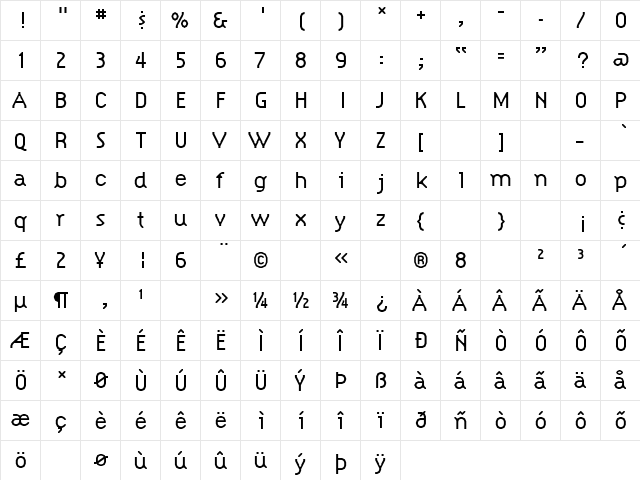
CitizenLight Regular
Design Context for CitizenLight Typeface
CitizenLight takes a measured approach to typography — its balanced proportions and neutral character make it a reliable workhorse for both digital and print work. Its slender proportions lend an understated elegance to any composition.